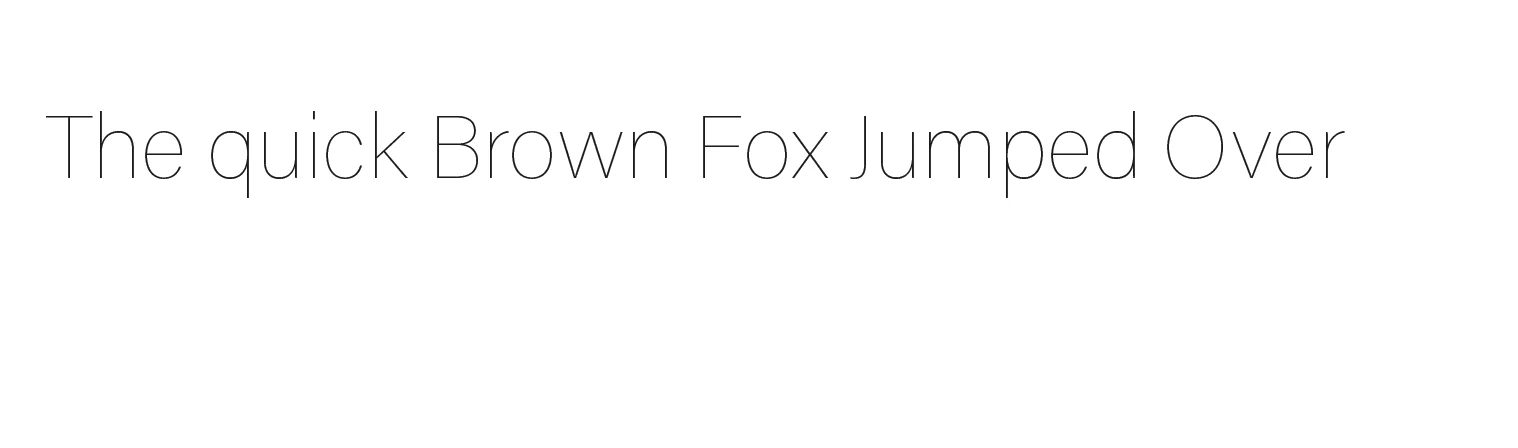
Script - font weight/thickness changes in a fluid dynamic gradient
Hello, I'm looking for a specific script that would create a fluid gradient change in thickness in a typeface, for example per line or per page? I would like to achieve the “wave”association, would anyone be so kind as share it with me? I know it exists since I used to have it.
By gradient do you mean a change in font weight (not color)?
Variable font weights can be scripted. This example changes the weight and width axes of a line of selected text set in Acumin Variable Concept:
app.selection[0].appliedFont = "Acumin Variable Concept	Regular"
var selectedText = app.selection[0].characters;
var t = selectedText[0];
var myDesignAxesName = t.appliedFont.designAxesName;
var myDesignAxesRange = t.appliedFont.designAxesRange;
var myDesignAxesValues = t.appliedFont.designAxesValues;
var wrange = myDesignAxesRange[0];
var w0 = wrange[0];
var w1 = wrange[1];
var wstep = (w1-w0)/selectedText.length;
var crange = myDesignAxesRange[1];
var c0 = crange[0];
var c1 = crange[1];
var cstep = (c1-c0)/selectedText.length;
for (s=0; s<selectedText.length; s++){
myDesignAxesValues[0]=(w0+wstep*s);
myDesignAxesValues[1]=(c0+cstep*s);
selectedText[s].designAxes=myDesignAxesValues;
}
A line of text set with Acumin Variable:
By gradient do you mean a change in font weight (not color)?
Variable font weights can be scripted. This example changes the weight and width axes of a line of selected text set in Acumin Variable Concept:
app.selection[0].appliedFont = "Acumin Variable Concept	Regular"
var selectedText = app.selection[0].characters;
var t = selectedText[0];
var myDesignAxesName = t.appliedFont.designAxesName;
var myDesignAxesRange = t.appliedFont.designAxesRange;
var myDesignAxesValues = t.appliedFont.designAxesValues;
var wrange = myDesignAxesRange[0];
var w0 = wrange[0];
var w1 = wrange[1];
var wstep = (w1-w0)/selectedText.length;
var crange = myDesignAxesRange[1];
var c0 = crange[0];
var c1 = crange[1];
var cstep = (c1-c0)/selectedText.length;
for (s=0; s<selectedText.length; s++){
myDesignAxesValues[0]=(w0+wstep*s);
myDesignAxesValues[1]=(c0+cstep*s);
selectedText[s].designAxes=myDesignAxesValues;
}
A line of text set with Acumin Variable:
My first thought is that this is something better/more easily accomplished in lllustrator. It would be a meticulous line-by-line tweak in ID, with the text wanting to reflow as it was expanded.
Can you create an example and post a screen capture?